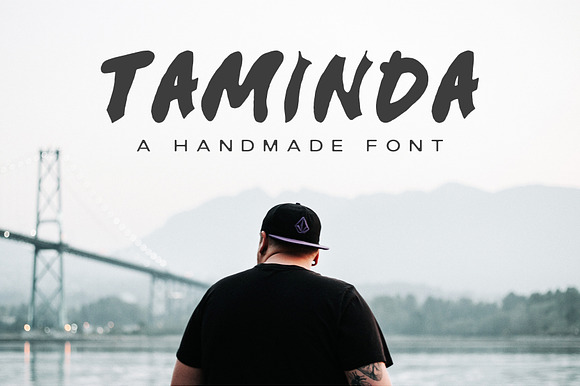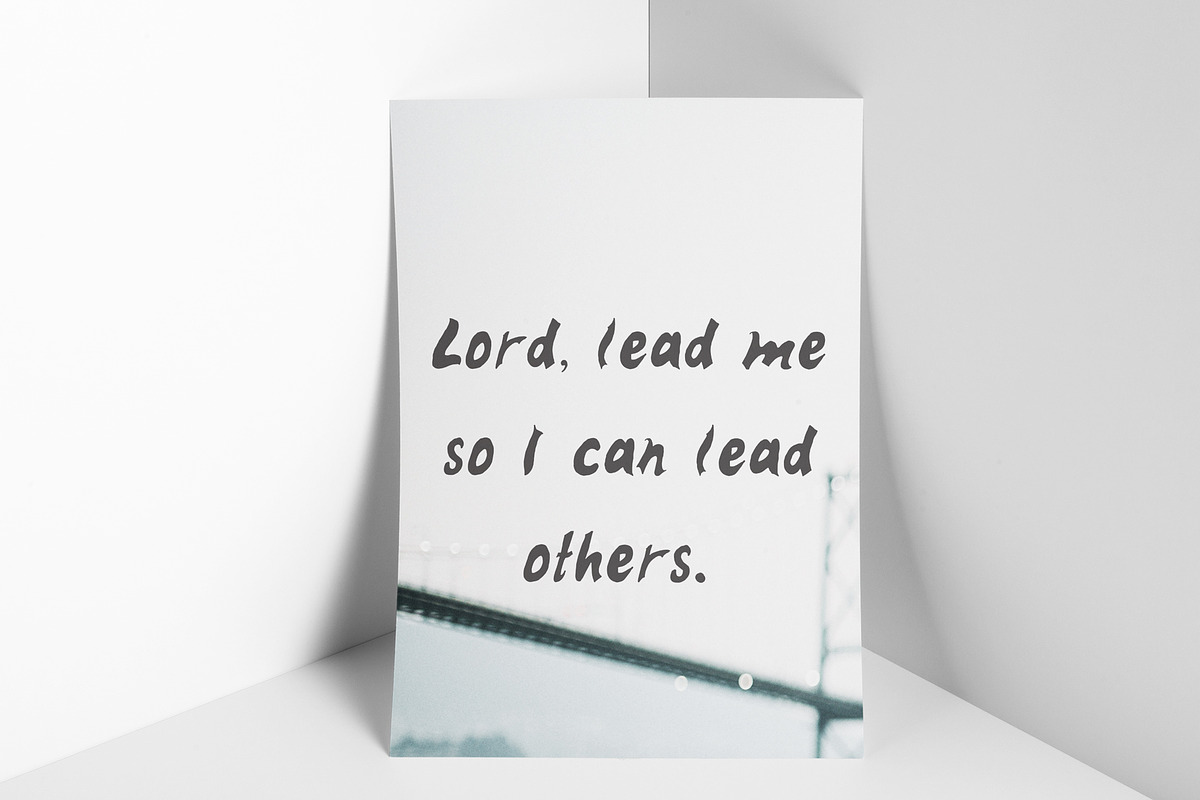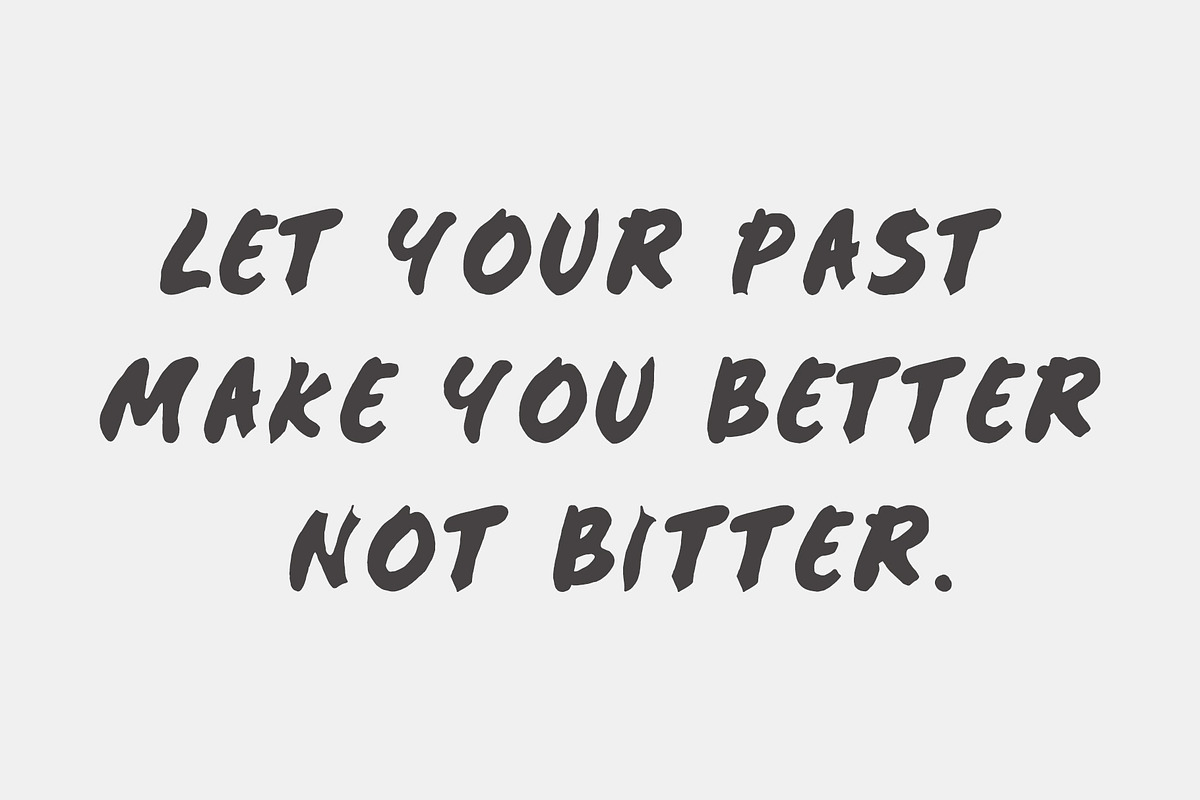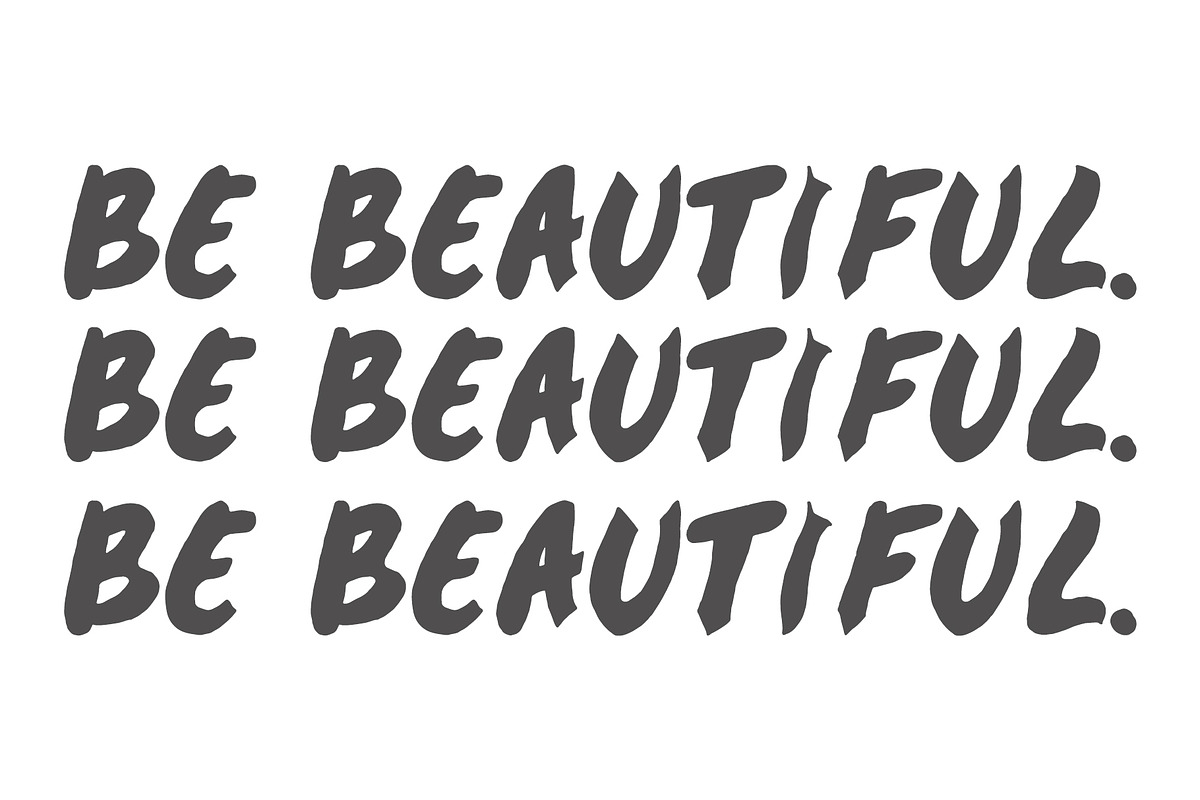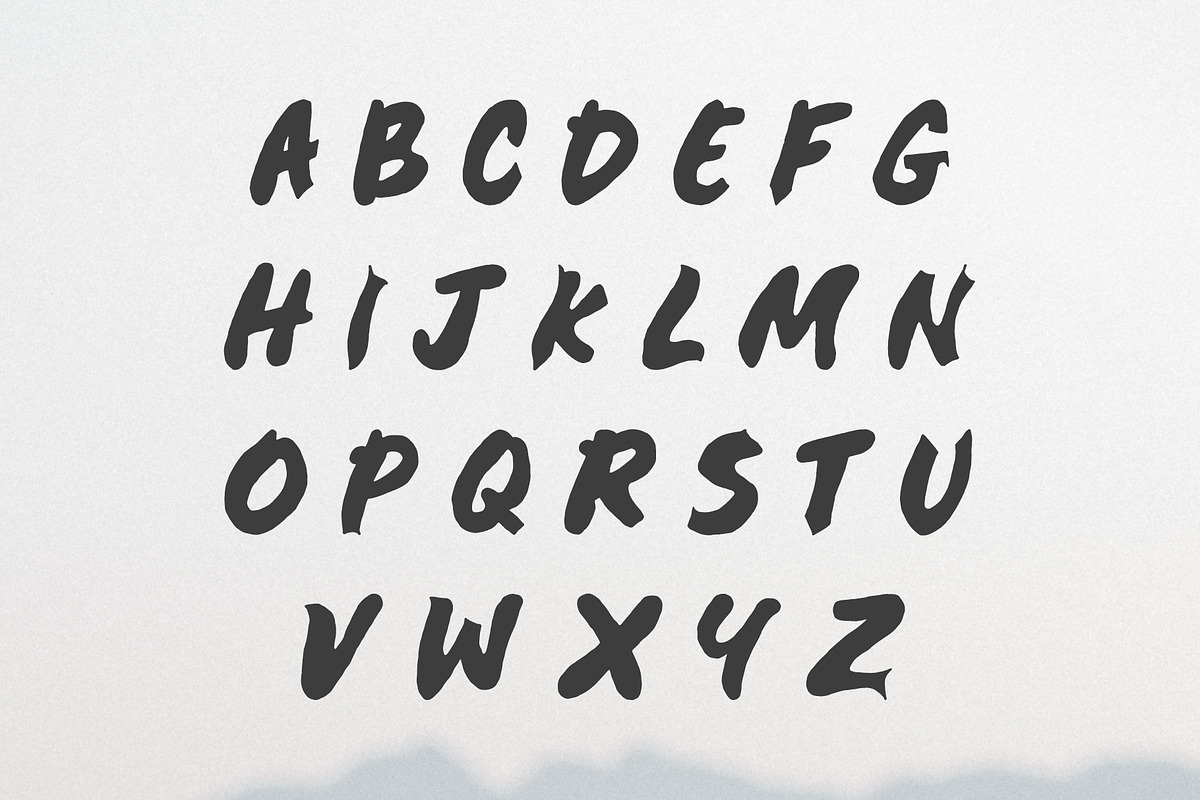
Taminda A Handmade Font
Taminda is a modernistic handmade font written with soft hand to produce a high quality font. It will look great for greeting cards, branding materials, wedding postcard, business cards, quotes, posters, small business, book covers, stationery, marketing, magazines and more.
Taminda A Handmade Font by Creativetacos fits naturally into Branding, posters, packaging, typography.